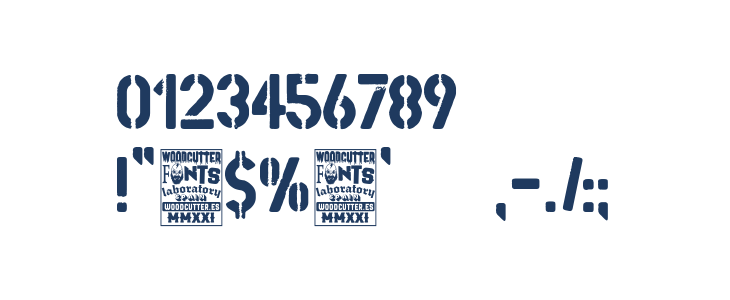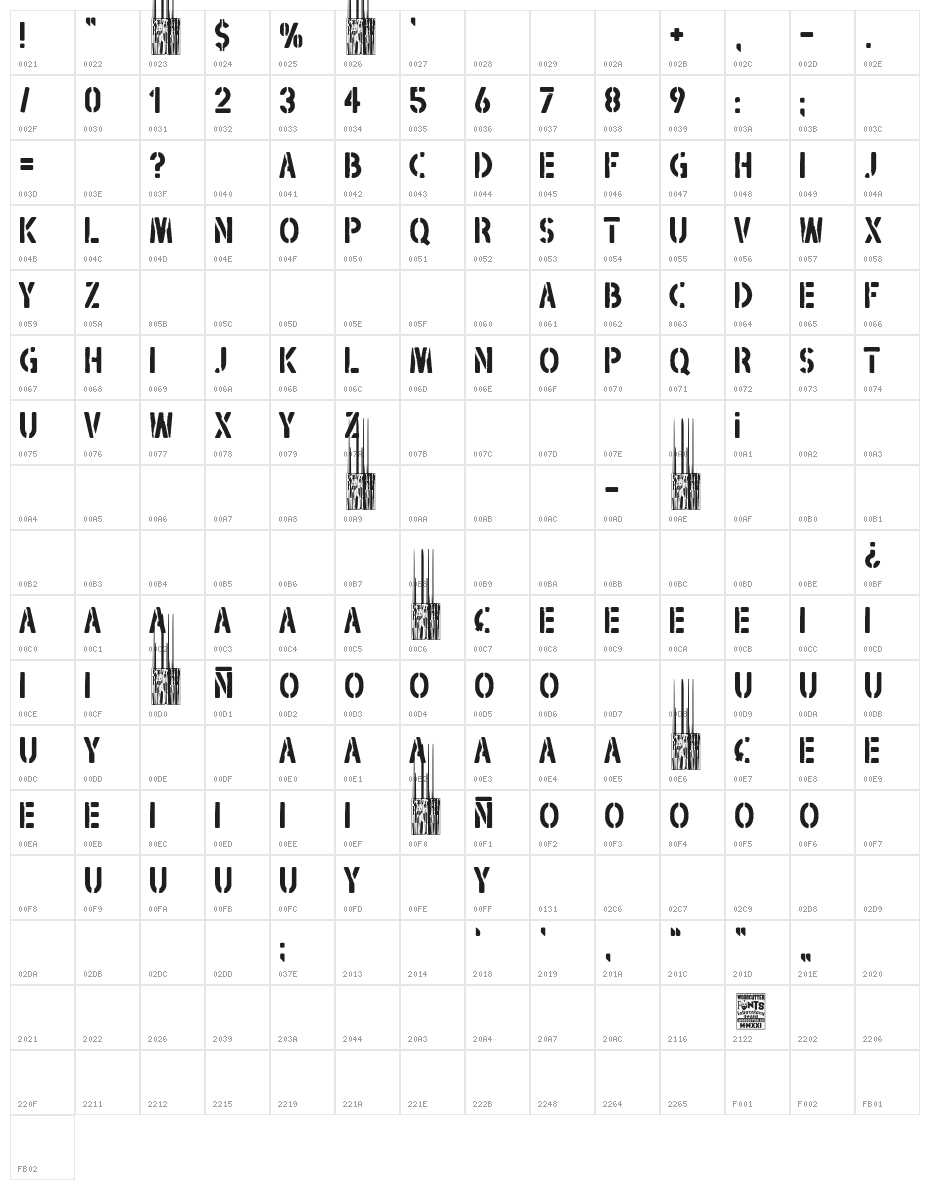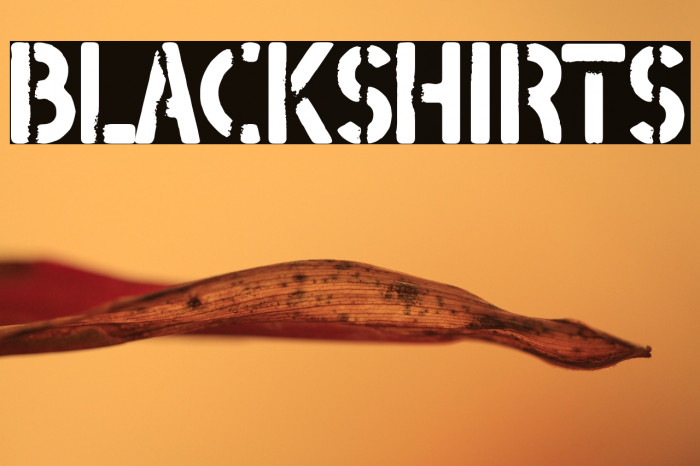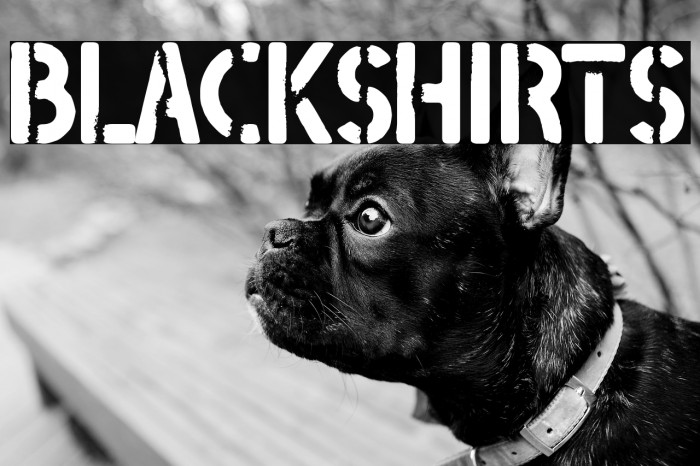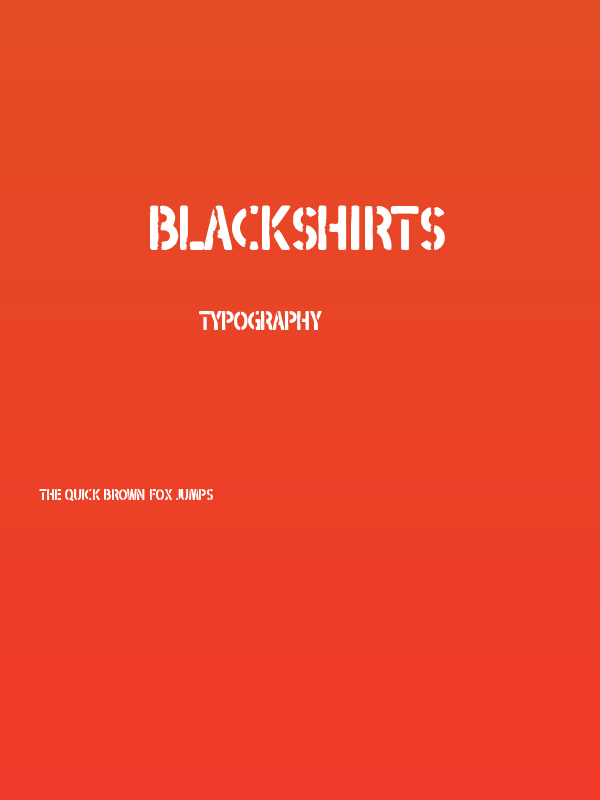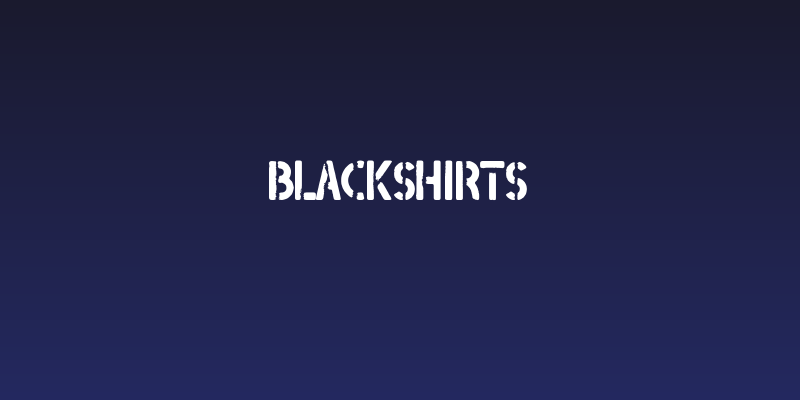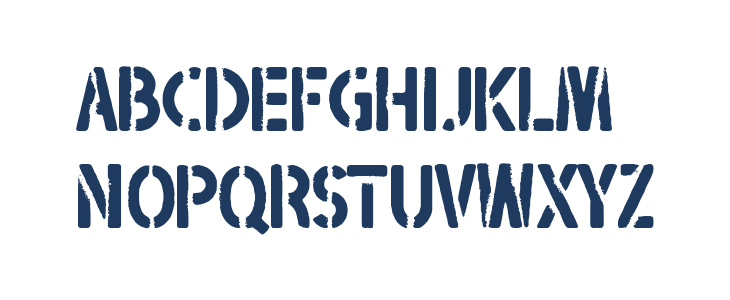
Blackshirts Font
Blackshirts Description
This font features a bold, distressed style with a stencil-like appearance. The characters are heavily textured, giving them a rugged and worn look, reminiscent of military or industrial design. The uppercase letters are prominent and commanding, while the numbers and special characters maintain the same distressed aesthetic. The font's unique style makes it stand out, with each letter appearing as if it has been spray-painted or stamped, adding to its raw and edgy feel. This design is perfect for projects that require a strong, impactful visual statement.
| Overall Style | Industrial, Rugged, Edgy |
| Use Case | Headlines, Posters, Branding |
| Proposed Projects | Ideal for posters, album covers, branding for edgy or industrial-themed products, and any design needing a bold, impactful typeface. |